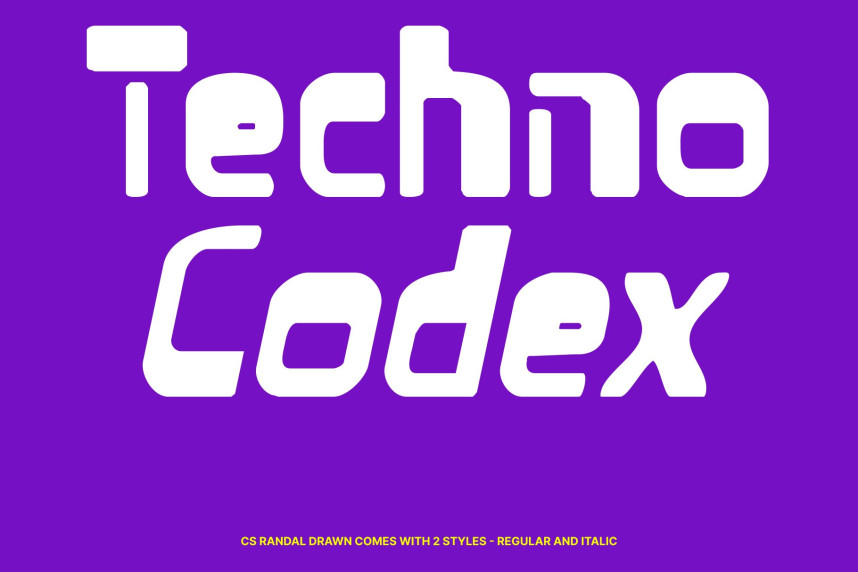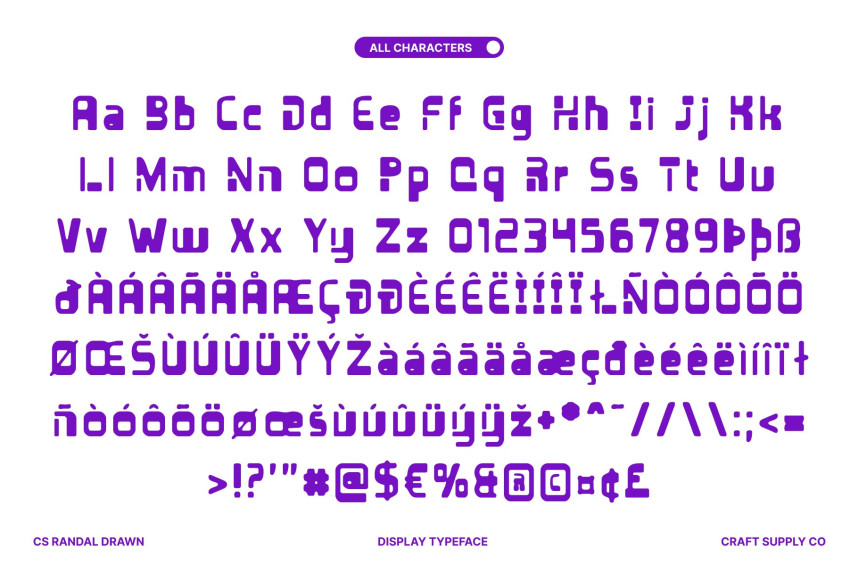
CS Randal Drawn Font
CS Randal Drawn Font – Brutalist Sans Serif with Sharp Industrial Edge Experimental Sans Serif with Bold Brutalist Attitude. This is a striking sans serif font rooted in brutalist design, enhanced with a hand-drawn texture that gives it an artistic, tactile quality. Its sharp edges, assertive forms, and rigid construction convey raw industrial power while the drawn effect adds a handcrafted depth, making each letter feel dynamic, alive, and uniquely expressive.